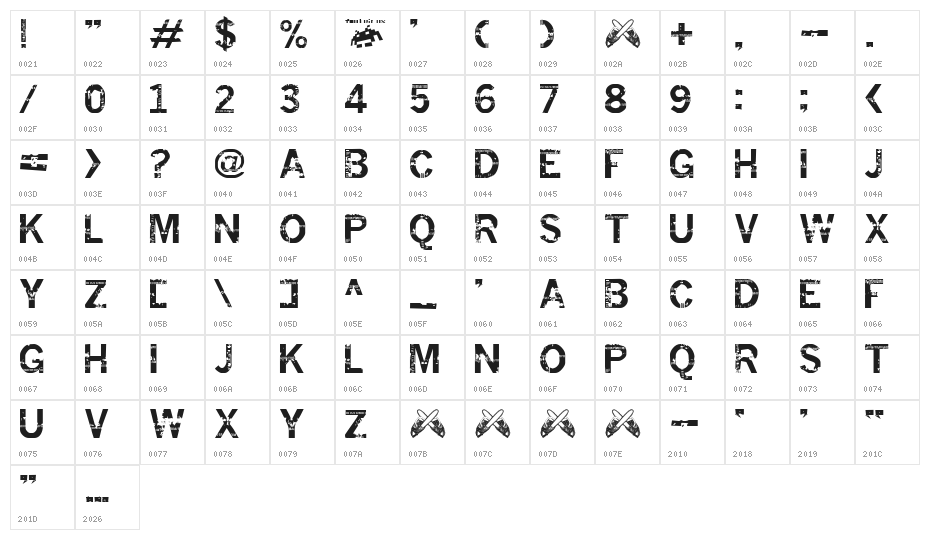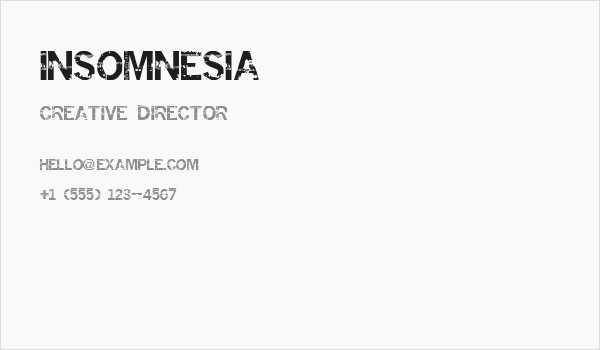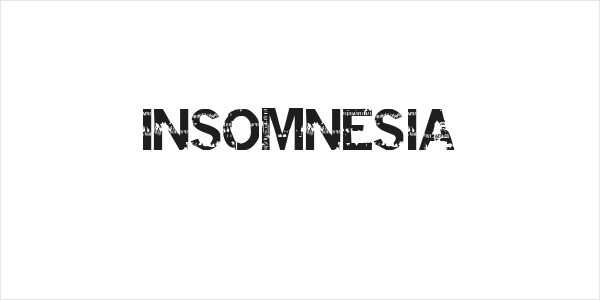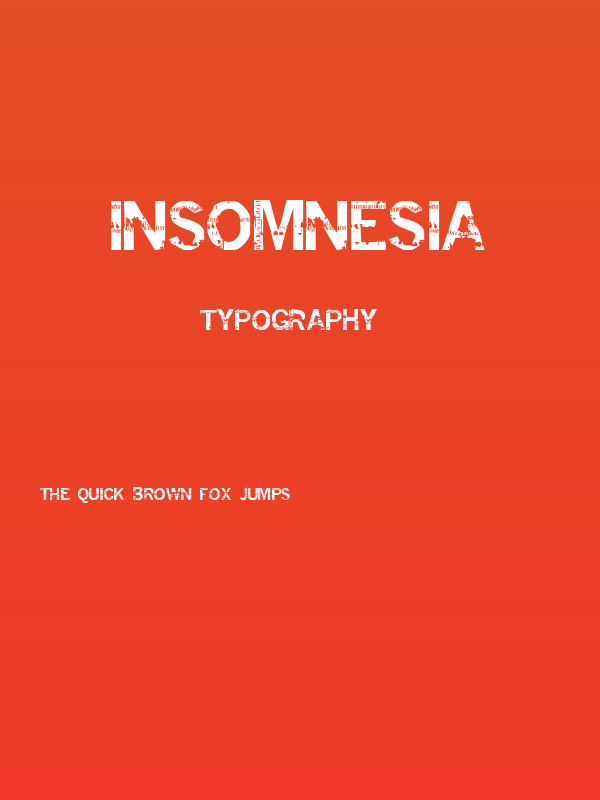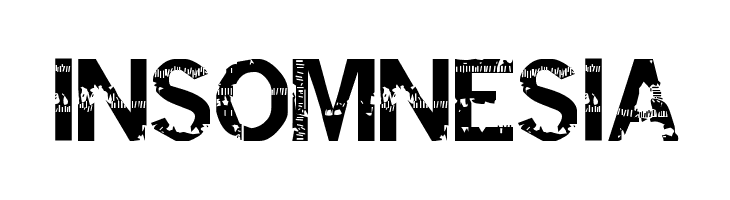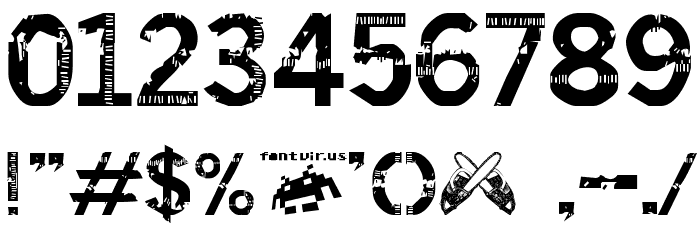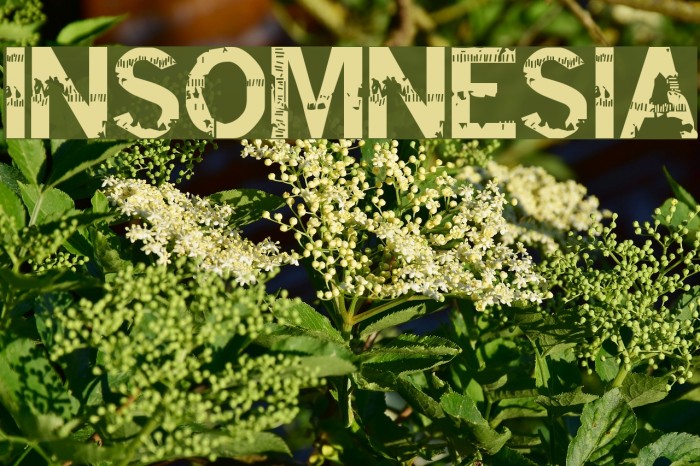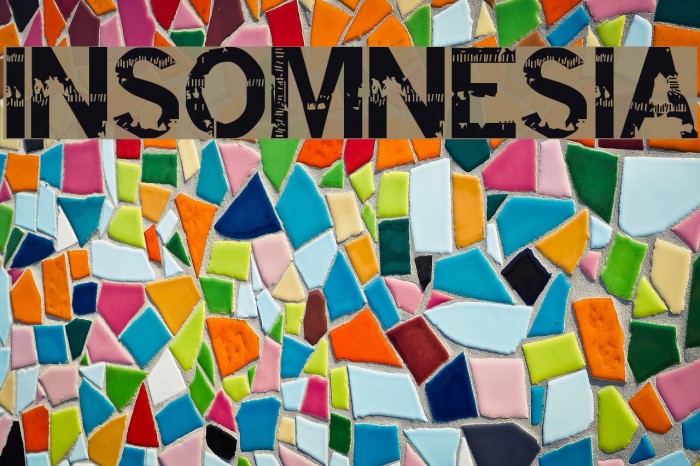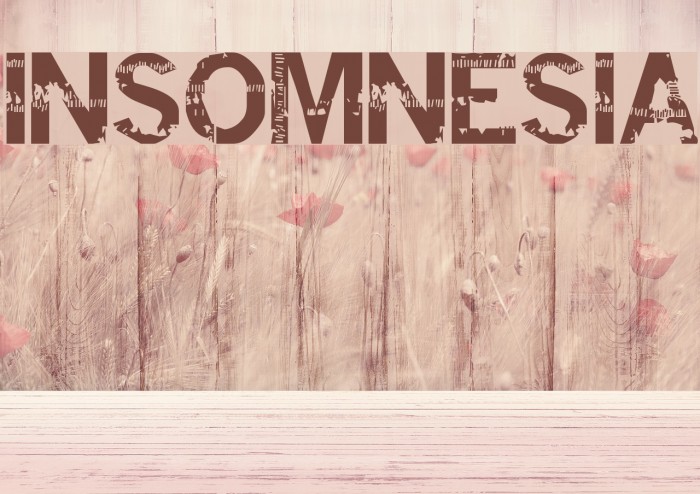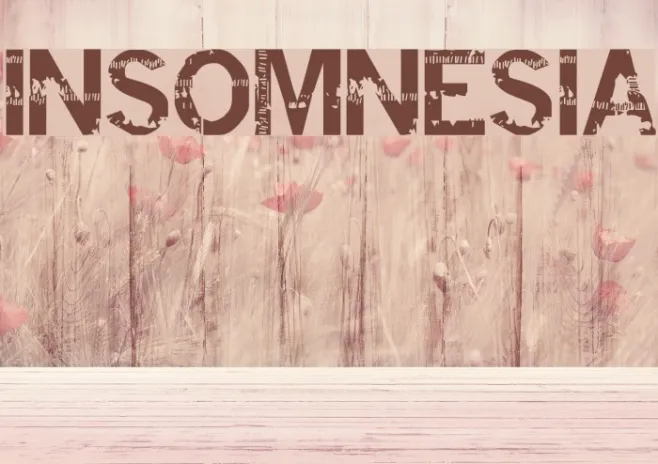
insomnesia Font
insomnesia Description
This font features a bold, distressed style with a grunge aesthetic. The characters are heavily textured, giving them a worn and rugged appearance. The uppercase and lowercase letters maintain a consistent design, with each character exhibiting unique imperfections and rough edges. The numbers and special characters follow the same distressed theme, making the font suitable for projects that require a raw, edgy look. The overall style is decorative and eye-catching, perfect for creating impactful headlines or artistic designs.
| Proposed Projects | Ideal for album covers, posters, urban-themed designs, and any project needing a gritty, artistic touch. |